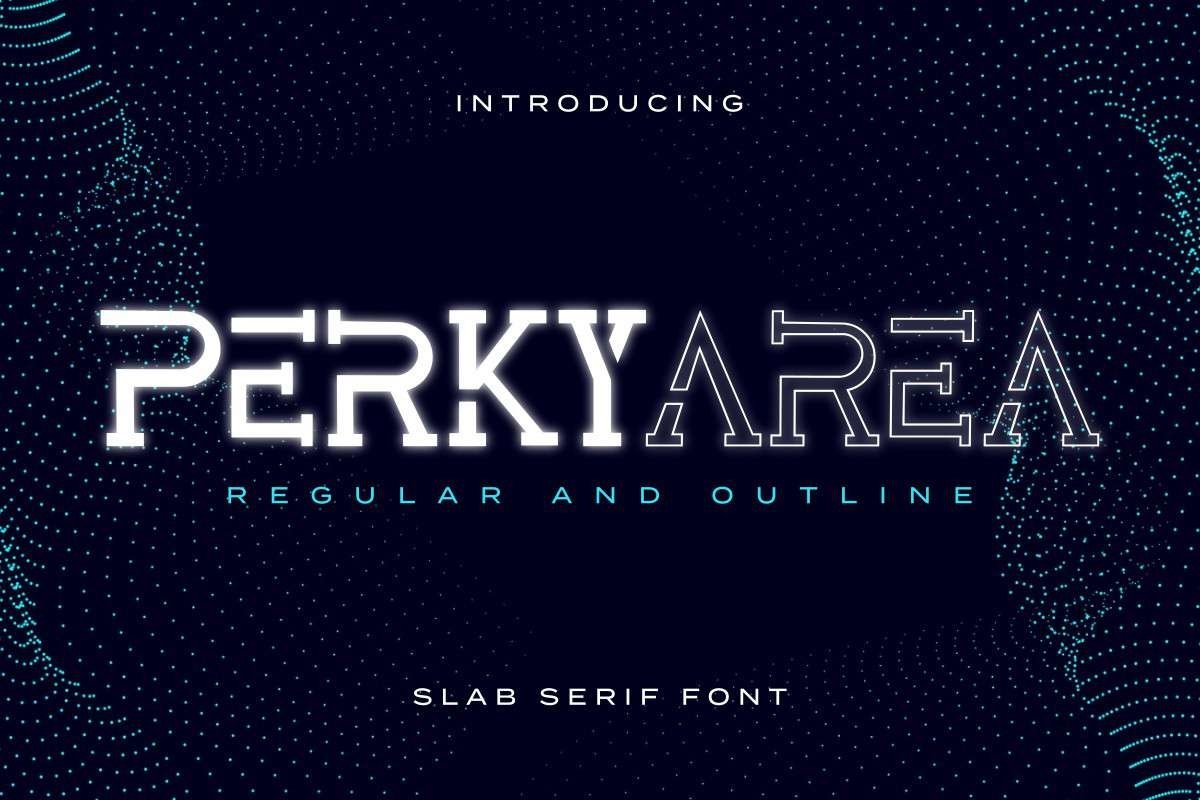
Perky Area
EDRIC Studio, Present to you : Perky Area Font
This is our newest product, handmade by Widi and Sarah. This is a luxurious calligraphy font, handcrafted here in Indonesia.
Perky Area Font has a fun characters/glyphs set, perfectly managed with well spaced and kerning. The theme style of this font will be fun, comic, handwriting, classic and handwritten style. Inspired by Modern Technology Industries, Remember it’s Perky Area Font  .
Perky Area will be awesome for any projects including : branding, logo, stationery, business card, signage, flyer, brochure etc. Almost all industries will be match for this typeface: technology, events, real estate, architect, weapon, space, research, financial, travel, hotel, robotic etc